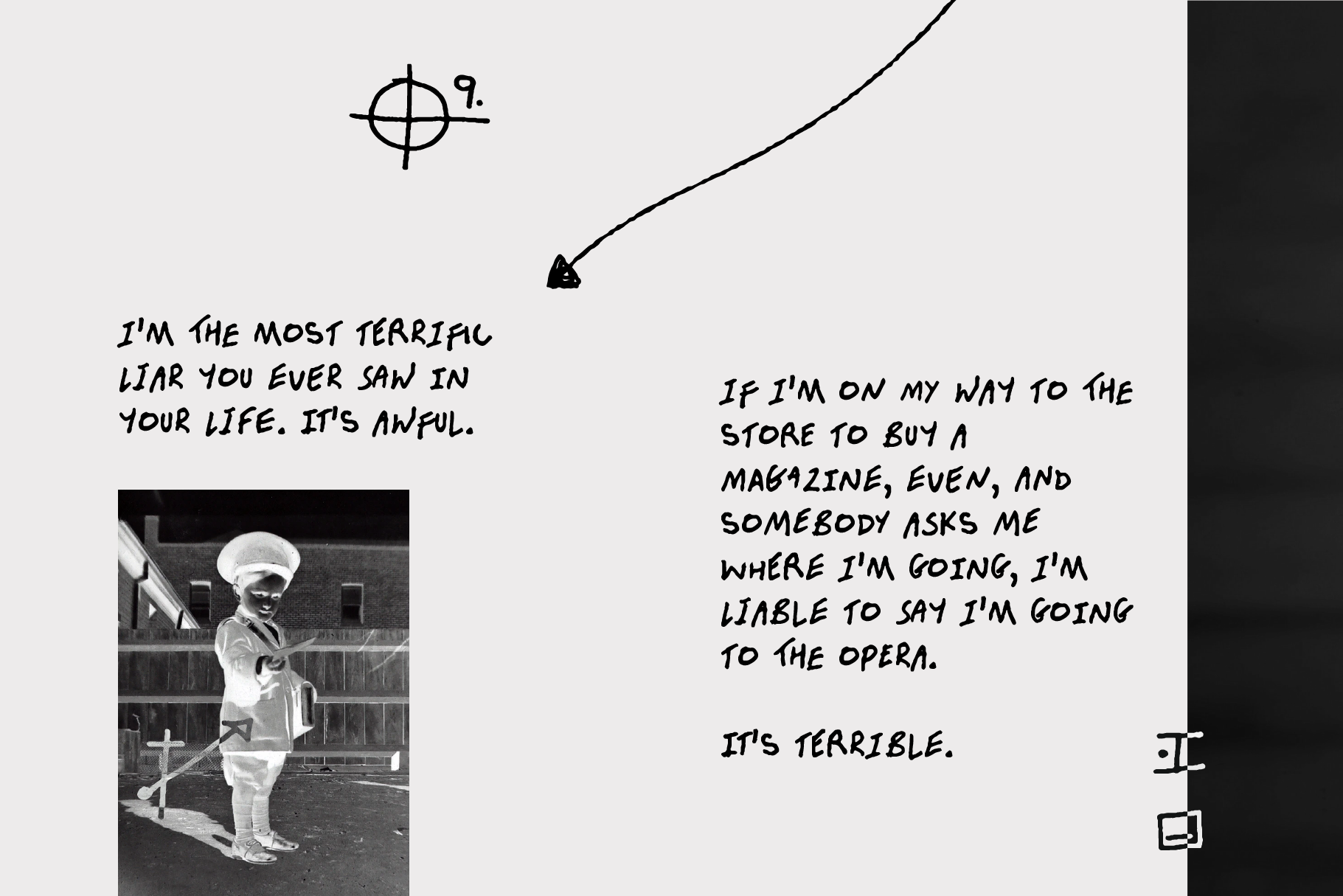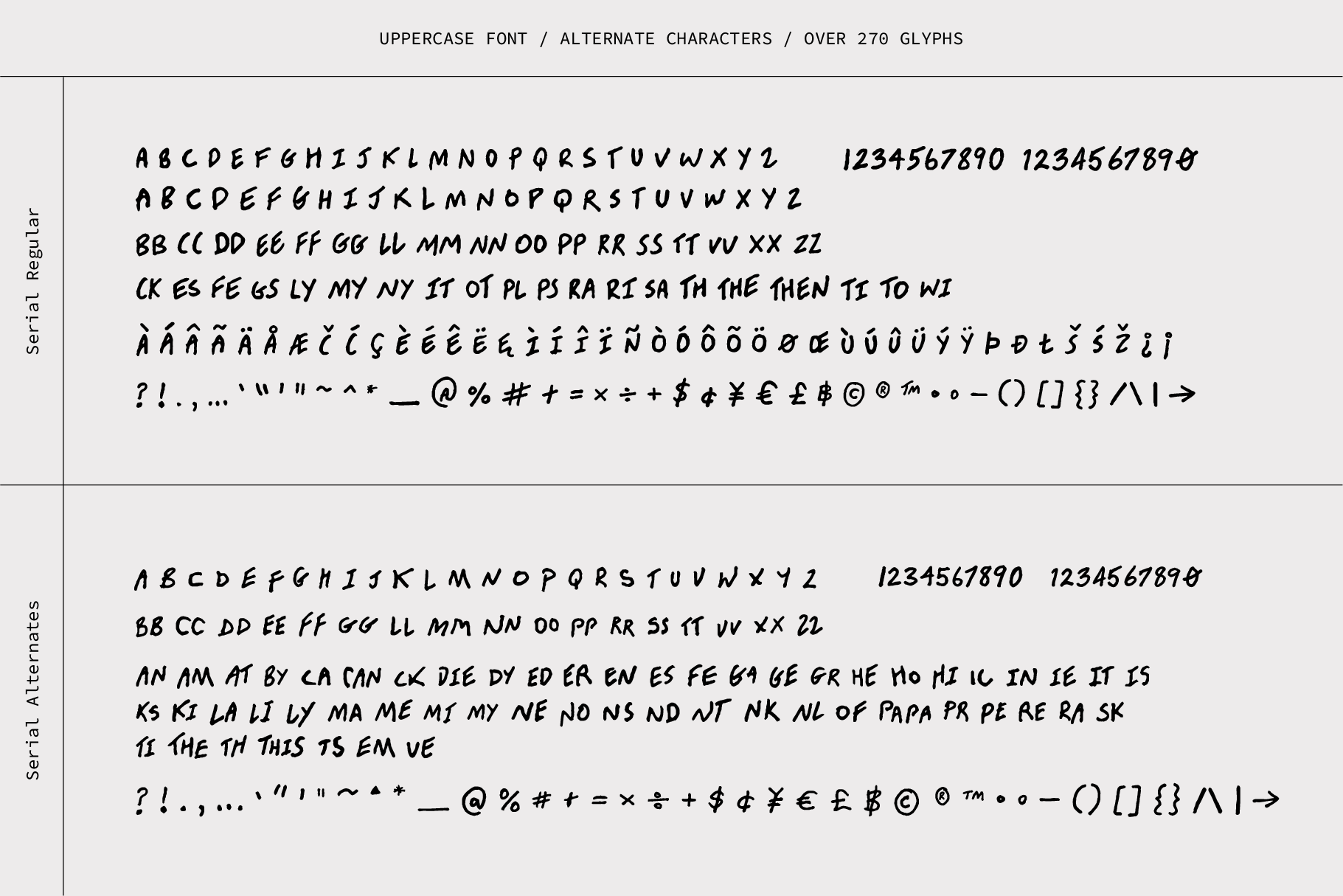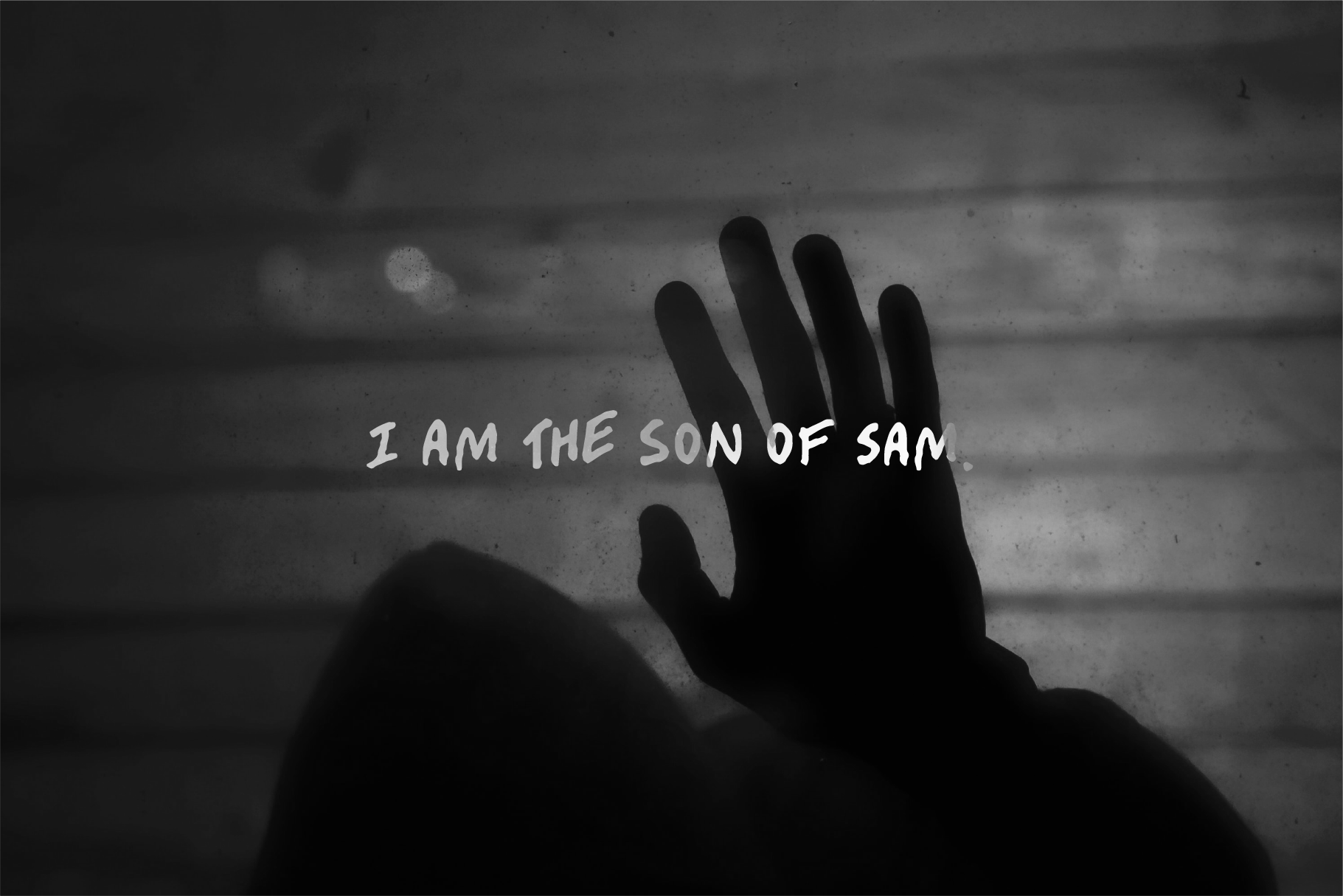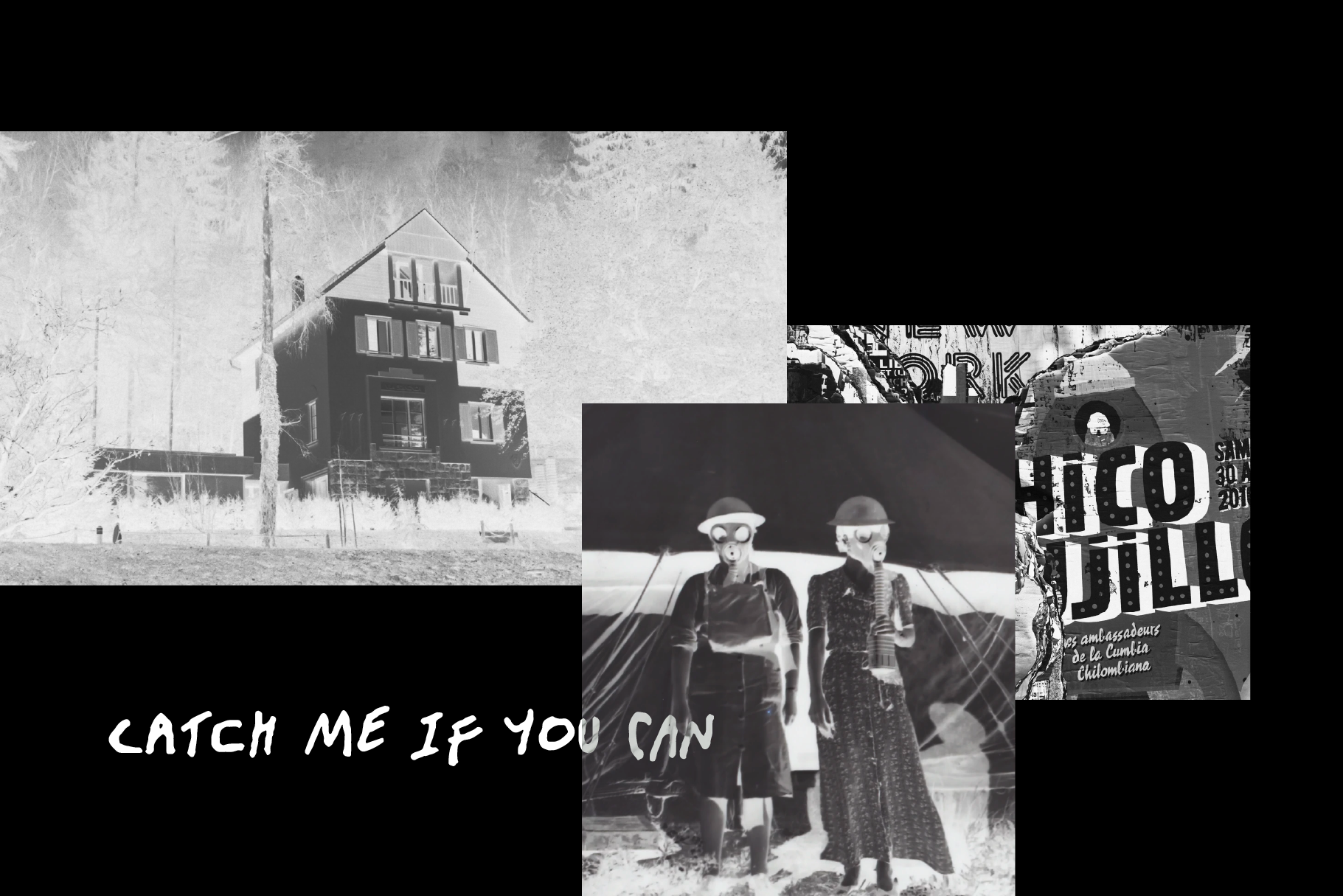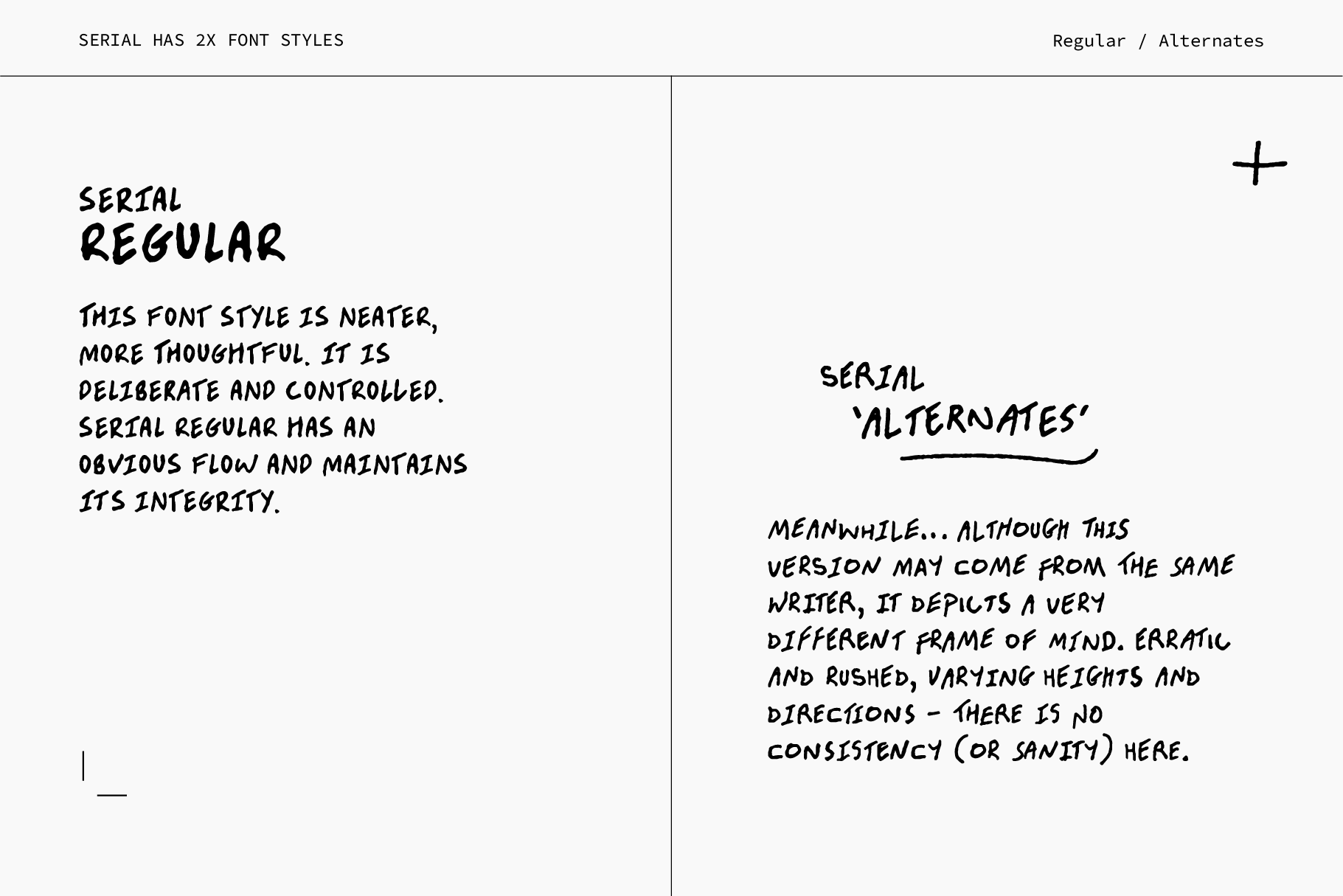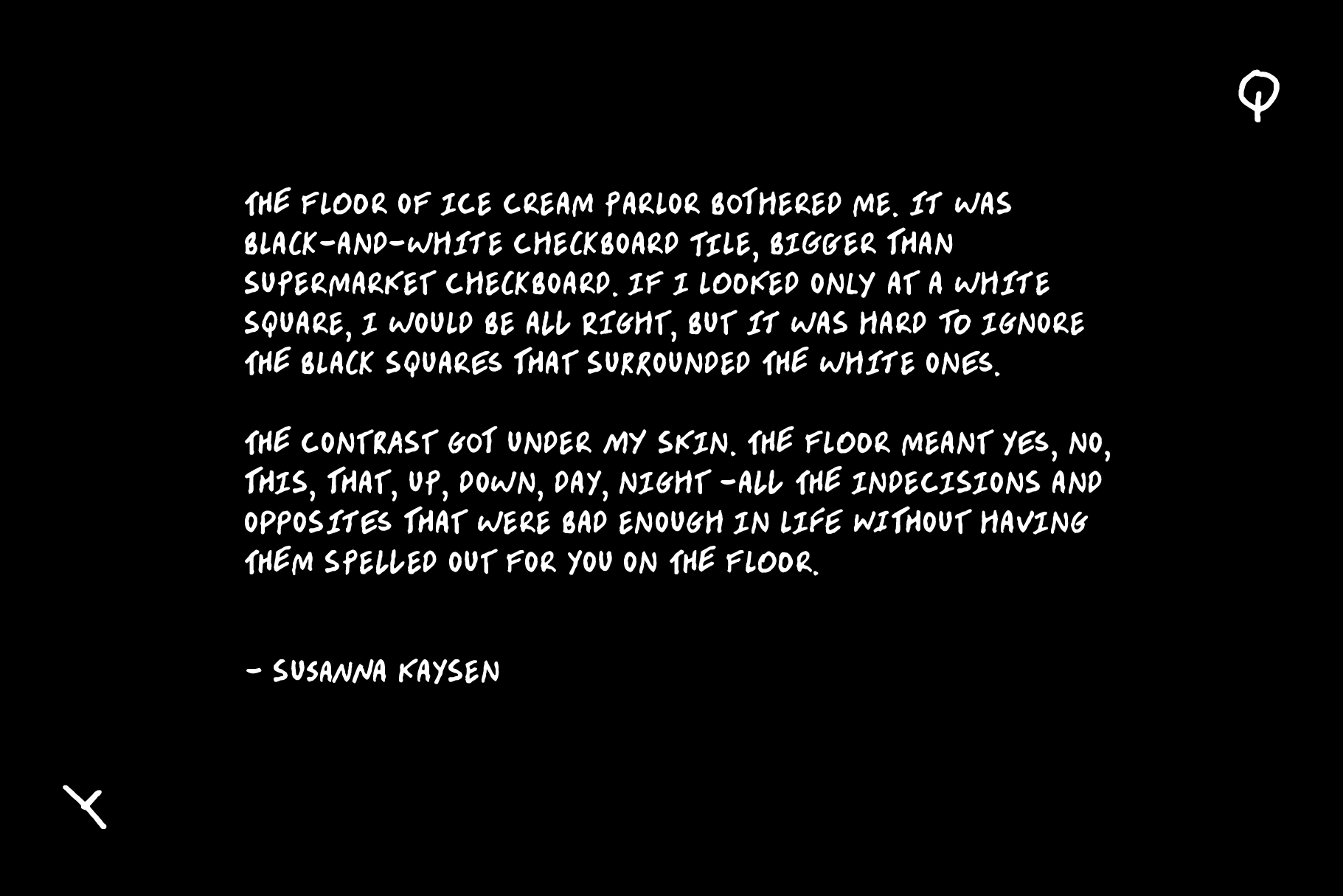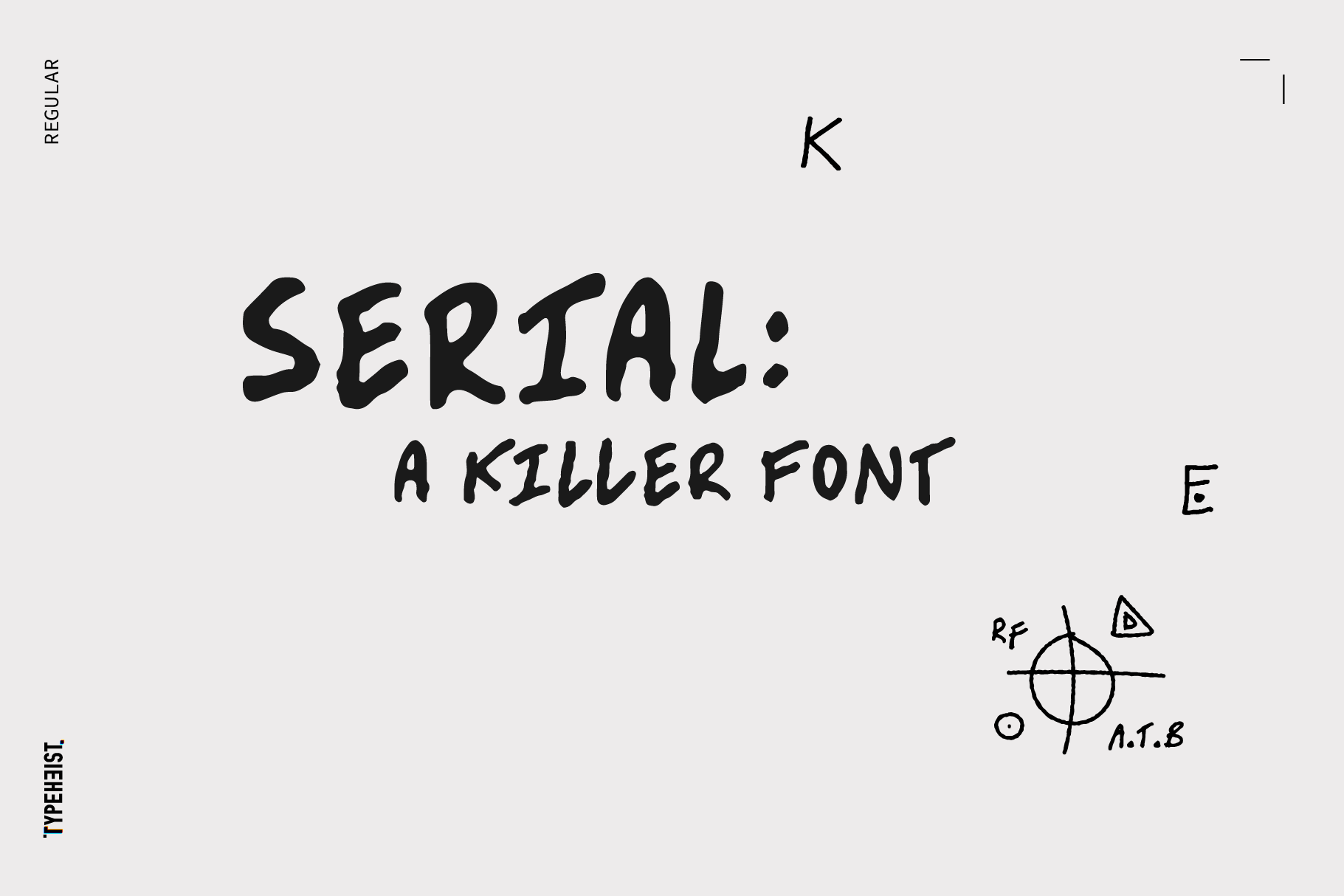
Serial font takes influence from the erratic handwriting in the letters by the serial killer, the Son of Sam. Like its author, this font is erratic, unpredictable and messy.
Serial is an uppercase font, with two styles (Regular and Alternates), multi-lingual characters and over 270 glyphs.
Containing two similar but discernible font styles, you can mix and match to create your own story. Serial Regular is neater and more thoughtful; it is controlled and has an obvious flow. Serial Alternates illustrates a very different frame of mind - it is turbulent and rushed with little to no consistency.
This messy font duo is the serial killer handwriting you’ve been looking for.